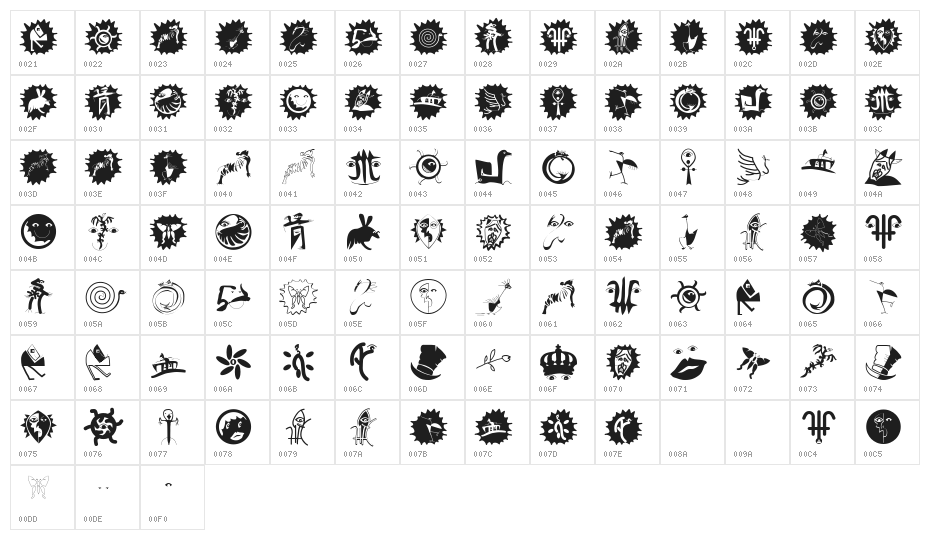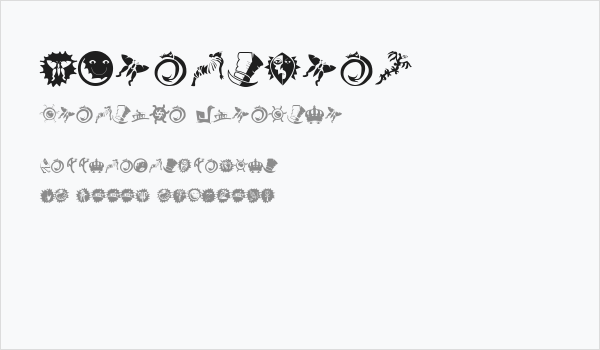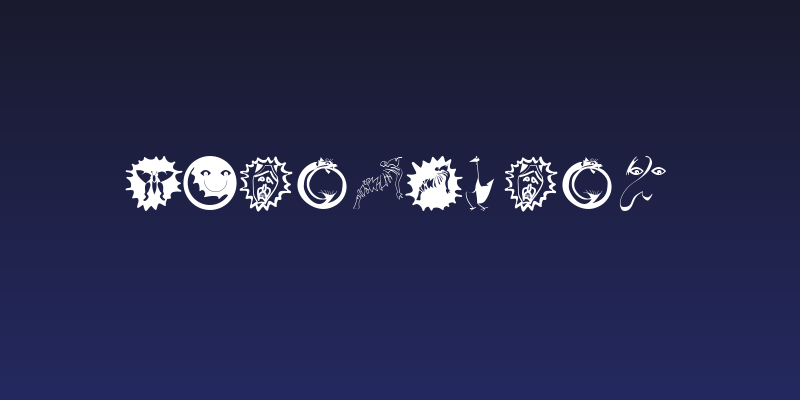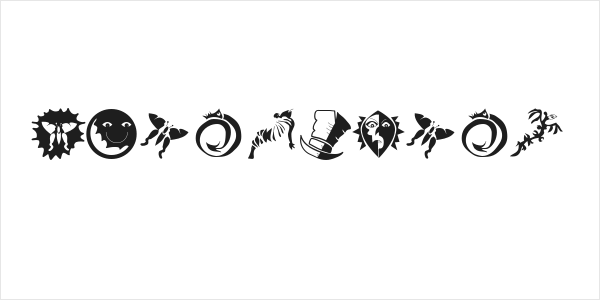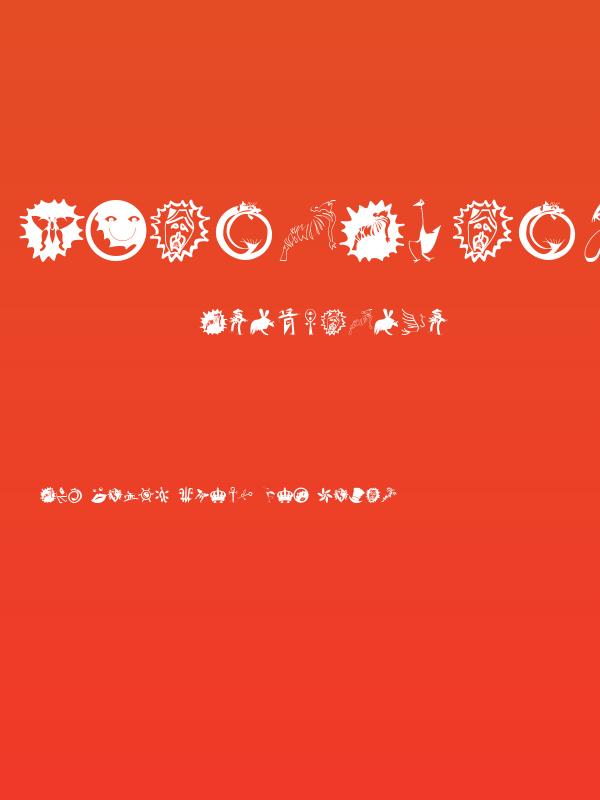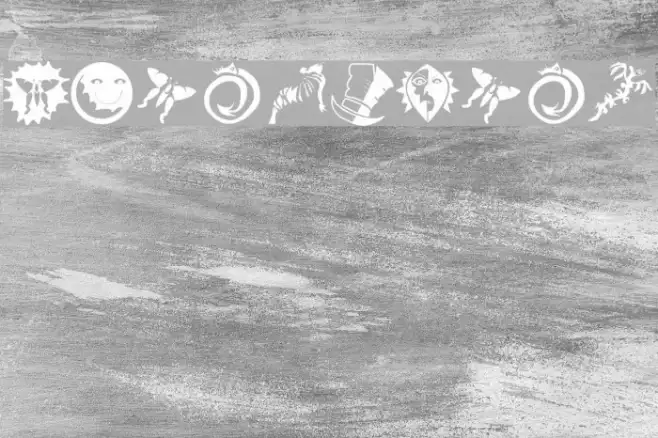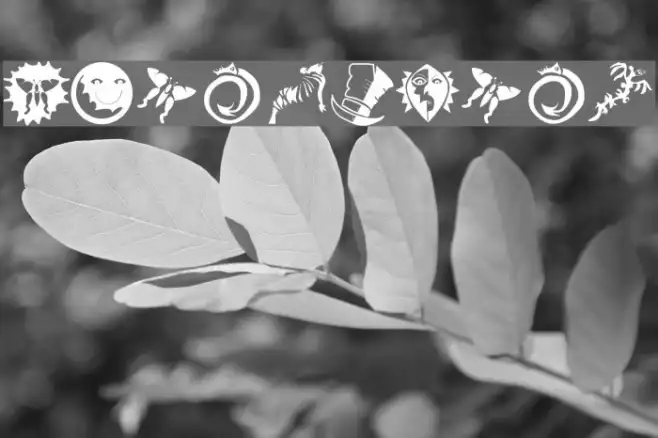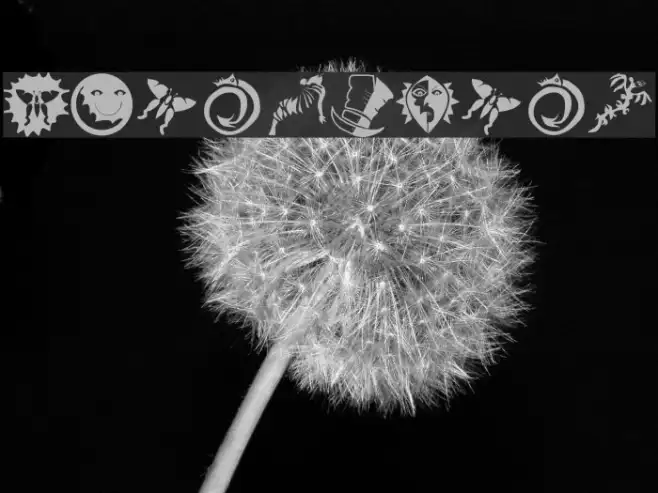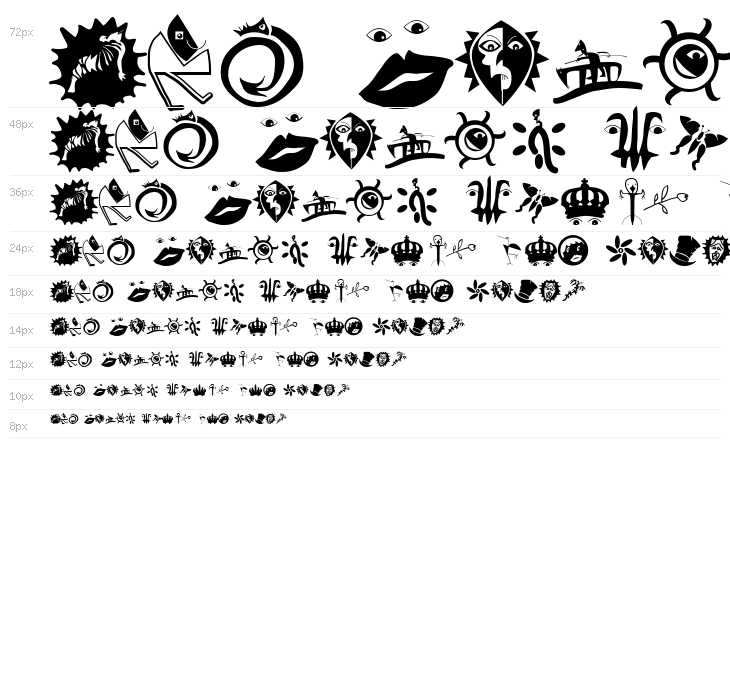
MKreatures Font
MKreatures Description
This collection features a whimsical and imaginative set of characters, each designed with unique and playful elements. The characters are not traditional letters but rather creative illustrations that resemble various creatures and objects. Each symbol is distinct, with intricate details and a bold, graphic style that captures attention. The designs are highly decorative, making them ideal for projects that require a touch of fantasy and creativity. The overall appearance is bold and striking, with a consistent use of black and white contrast that enhances the visibility of each character.
| Use Case | Logos, Decorative art, Branding |
| Proposed Projects | Ideal for creative projects such as children's book illustrations, fantasy-themed designs, unique branding elements, or decorative art pieces. |